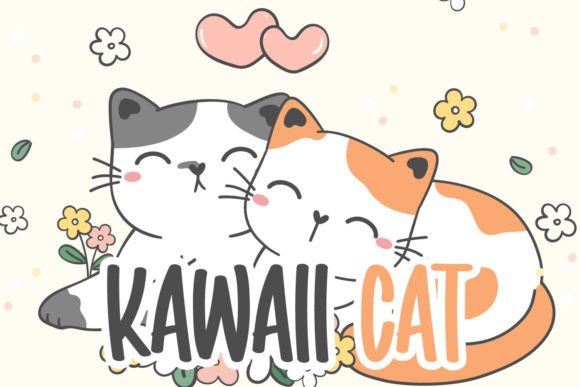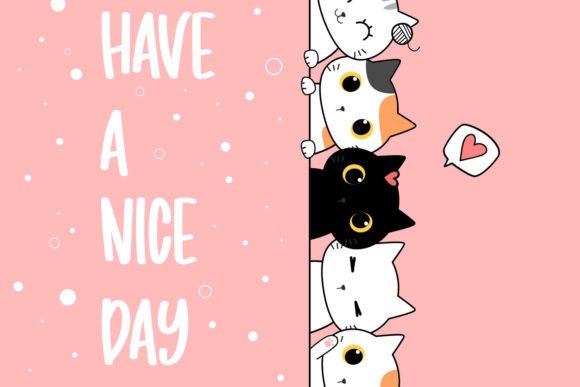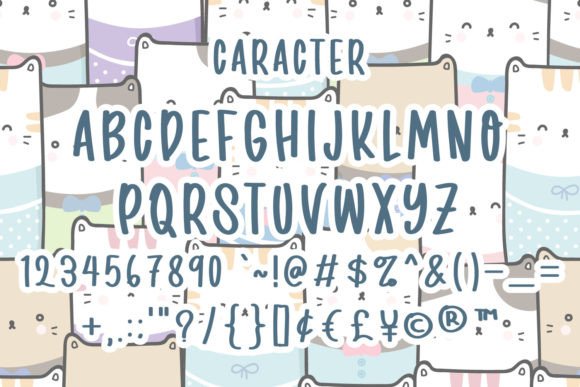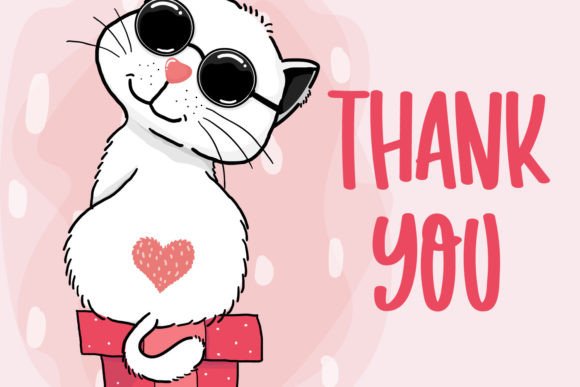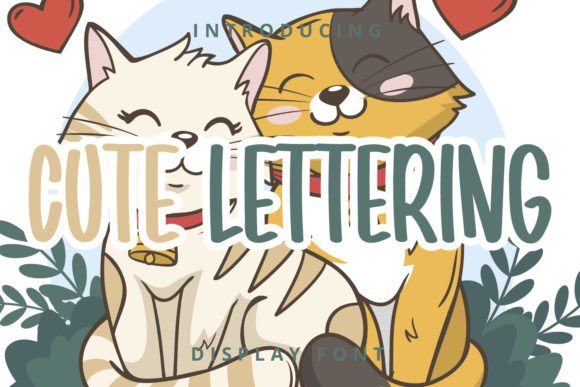
Cute Lettering Font: Elevate Your Designs with a Modern Display Font
Are you tired of using the same old fonts in your designs? Do you want to add a touch of personality and whimsy to your projects? Look no further than Cute Lettering Font, a modern display font that is readable, smart, and fun. In this article, we’ll explore the features and benefits of Cute Lettering Font, and show you how to incorporate it into your designs with confidence.
What is Cute Lettering Font?
Cute Lettering Font is a modern display font designed to add a playful and charming touch to your projects. With its unique and quirky letterforms, this font is perfect for designers and crafters who want to create eye-catching and engaging designs. Whether you’re working on a branding project, a social media graphic, or a craft project, Cute Lettering Font is sure to make your designs stand out.
Features of Cute Lettering Font
Cute Lettering Font has several features that make it a versatile and effective font for your designs. Some of its key features include:
- Readability: Despite its playful and whimsical design, Cute Lettering Font is highly readable, making it perfect for use in a variety of contexts, from headings and titles to body text.
- Smart Design: Cute Lettering Font is designed with intelligence and creativity in mind. Its unique letterforms and spacing make it easy to read and understand, even at small sizes.
- Fun and Playful: Cute Lettering Font is the perfect font for designers and crafters who want to add a touch of personality and whimsy to their designs. Its playful and charming design makes it ideal for use in creative projects.
Benefits of Using Cute Lettering Font
So why should you choose Cute Lettering Font for your designs? Here are just a few benefits of using this modern display font:
- Adds Personality to Your Designs: Cute Lettering Font is the perfect way to add a touch of personality and whimsy to your designs. Its unique and quirky letterforms make it stand out from more traditional fonts.
- Improves Readability: Despite its playful design, Cute Lettering Font is highly readable, making it perfect for use in a variety of contexts.
- Versatile: Cute Lettering Font is a versatile font that can be used in a wide range of contexts, from branding and advertising to crafting and DIY projects.
How to Use Cute Lettering Font in Your Designs
Using Cute Lettering Font in your designs is easy. Here are a few tips to get you started:
- Pair it with Other Fonts: Cute Lettering Font pairs well with a variety of other fonts, from traditional serif fonts to modern sans-serif fonts.
- Use it for Headings and Titles: Cute Lettering Font is perfect for use in headings and titles, where its playful and whimsical design can really shine.
- Experiment with Colors and Textures: Cute Lettering Font looks great in a variety of colors and textures. Experiment with different combinations to find the one that works best for your design.
Cute Lettering Font in Crafting and DIY Projects
Cute Lettering Font is not just for digital designers. It’s also perfect for crafters and DIY enthusiasts who want to add a personal touch to their projects. Here are a few ways you can use Cute Lettering Font in your crafting and DIY projects:
- Hand Lettering: Use Cute Lettering Font as inspiration for your hand lettering projects. Its unique and quirky letterforms make it perfect for adding a personal touch to your work.
- Journaling: Add Cute Lettering Font to your journaling projects for a touch of personality and whimsy.
- Paper Crafting: Cute Lettering Font is perfect for use in paper crafting projects, such as card making and scrapbooking.
Cute Lettering Font is a modern display font that is readable, smart, and fun. With its unique and quirky letterforms, this font is perfect for designers and crafters who want to add a touch of personality and whimsy to their projects. Whether you’re working on a branding project, a social media graphic, or a craft project, Cute Lettering Font is sure to make your designs stand out. So why wait? Add Cute Lettering Font to your projects today and see the difference it can make!